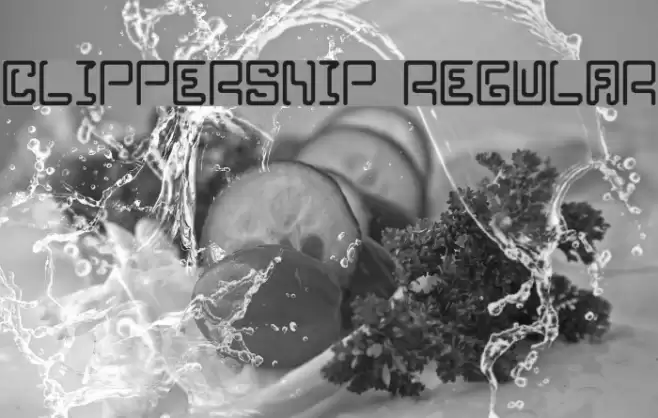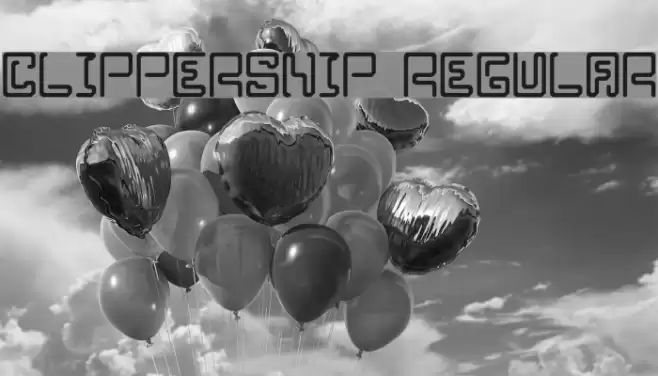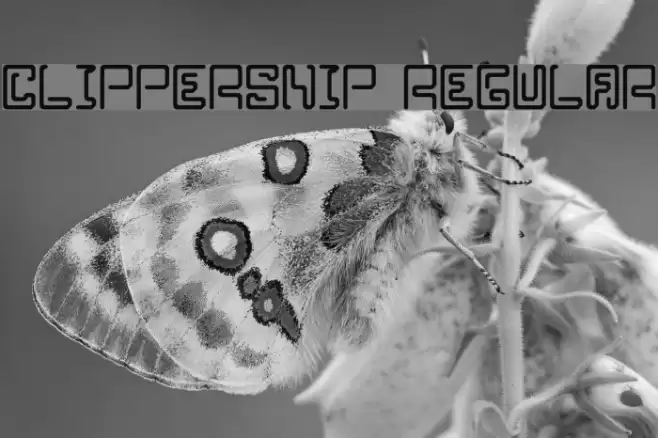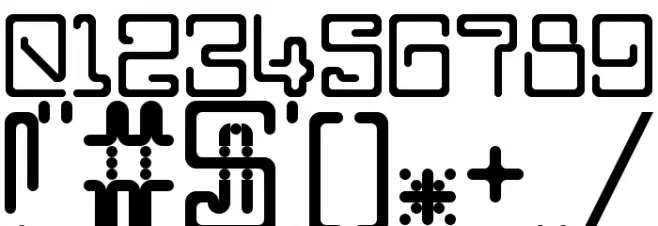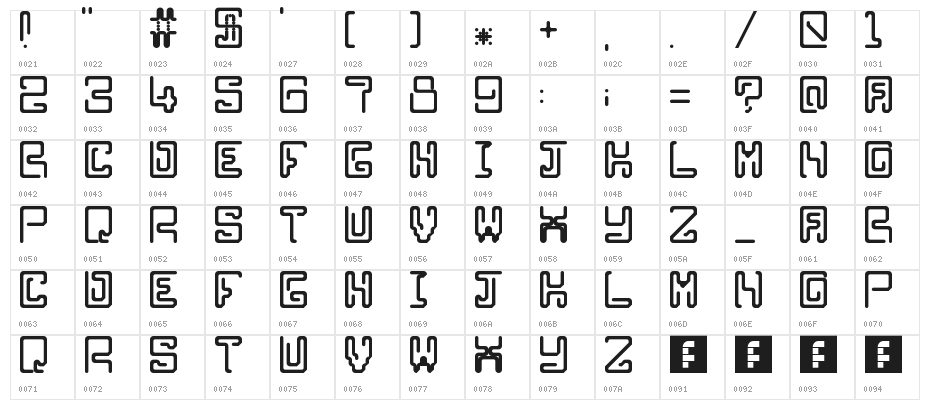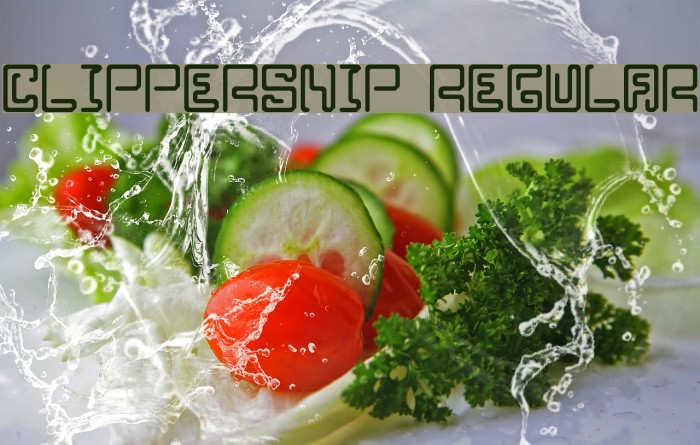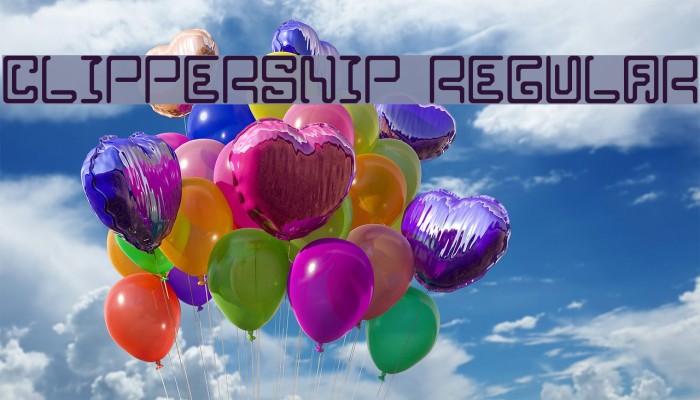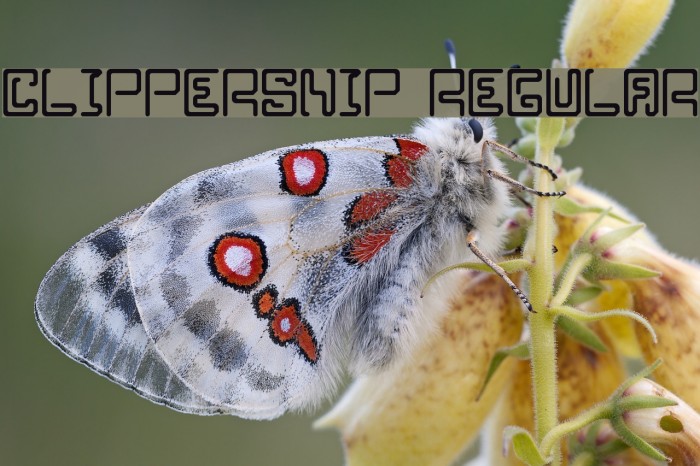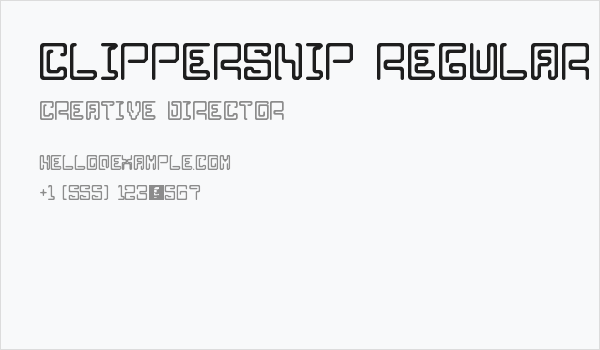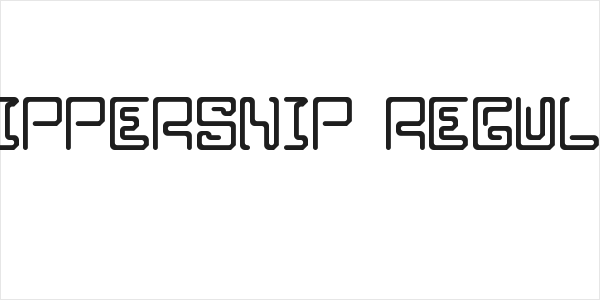
Clippersnip Regular Font
Clippersnip Regular Description
This font features a unique, futuristic design with a bold, geometric structure. Each character is outlined with a consistent stroke width, creating a hollow effect that emphasizes its modern aesthetic. The characters are composed of straight lines and sharp angles, giving them a mechanical and industrial feel. The uppercase and lowercase letters maintain a uniform height, contributing to a cohesive appearance. The numerals and special characters are designed to match the angular style of the alphabet, ensuring visual harmony across all glyphs. This font's distinct style makes it suitable for projects that require a contemporary and edgy look.
A bold, geometric font with a futuristic and industrial design from Uncategorized fonts.
- Proposed Projects: Ideal for technology branding, sci-fi posters, video game titles, and modern art installations.